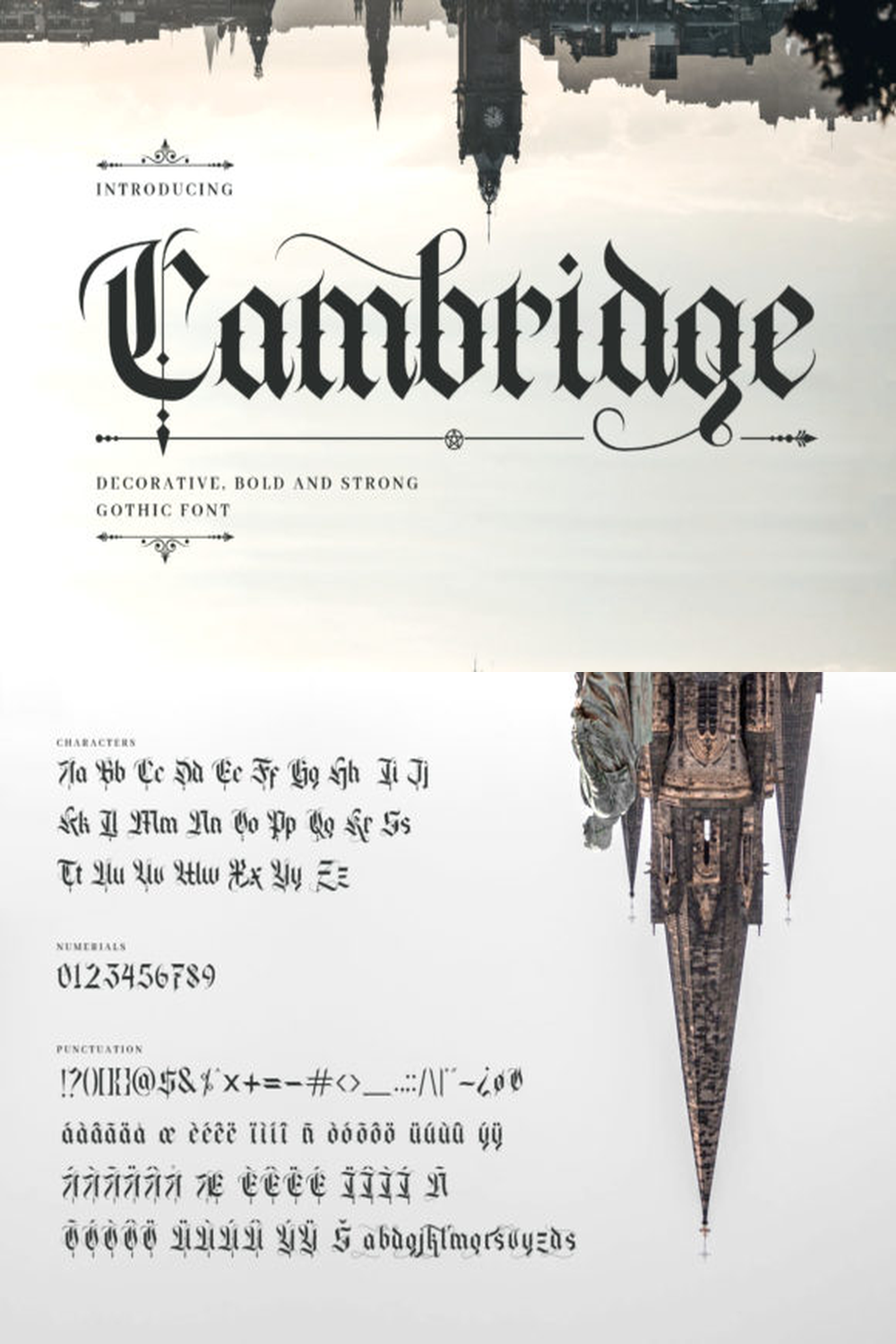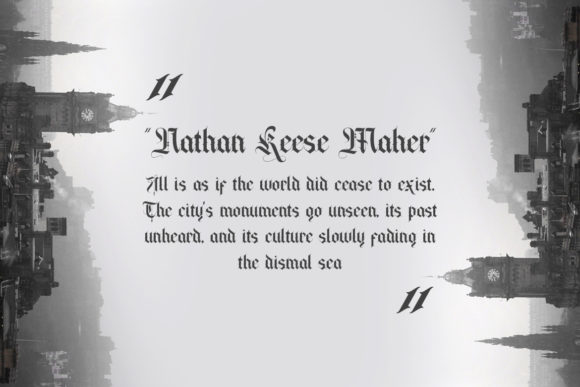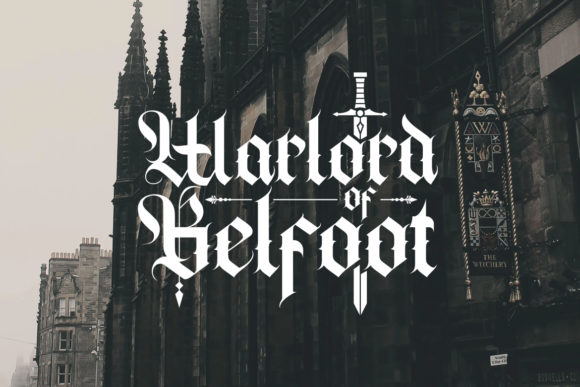
About the Cambridge Font
Crafted with precision, the Cambridge Font is ready to bring your ideas to life. Cambridge is an elegant and authentic blackletter font, inspired by a gothic style. This dazzling font will turn any creative idea into a standout!